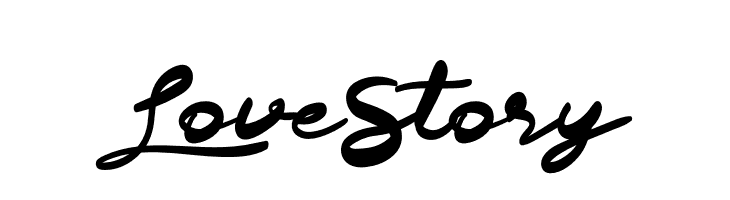
A whimsical, cursive font perfect for festive and elegant designs.
An elegant, flowing script font with high contrast and graceful curves.
A graceful script font with flowing, cursive strokes and elegant curves.
A bold, playful handwritten font with thick strokes and rounded edges.
A sophisticated and fluid script font with seamless cursive connections.
A bold, playful script font with a dynamic and informal style.
An elegant and flowing script font with smooth, cursive strokes.
A vintage, decorative font with bold, artistic strokes and a handcrafted appearance.
A vintage-style, inline font with a bold, hand-drawn appearance.
A playful, romantic cursive font with smooth curves and elegant flow.
A bold, expressive script font with a hand-drawn, dynamic style.
A bold, expressive handwritten font with dynamic strokes.
A hand-drawn, brush-style font with dynamic strokes and an artistic flair.
A bold, playful handwritten font with rounded, energetic letterforms.
A playful, casual handwritten font with smooth, flowing lines.
A playful handwritten font with a casual and friendly style.
A lively and expressive handwritten font with fluid strokes and playful elegance.
A bold, playful handwritten font with smooth curves and a lively appearance.
A playful, decorative font with bold, rounded characters and unique circular cutouts.
A textured, hand-drawn font with a whimsical and slightly eerie style.
A dynamic, handwritten font with an energetic and playful style.
An elegant, flowing script font with a romantic and sophisticated style.
An elegant, flowing script font with modern, sophisticated curves.
A playful, hand-drawn font with rounded edges and a whimsical style.
An elegant script font with flowing cursive style and decorative swashes.
A spooky, dripping font perfect for Halloween themes.
A flowing, elegant script font with high contrast and interconnected characters.
A modern, handwritten font with elegant, fluid strokes and dynamic character design.
A dynamic, expressive script font with fluid, handwritten strokes.